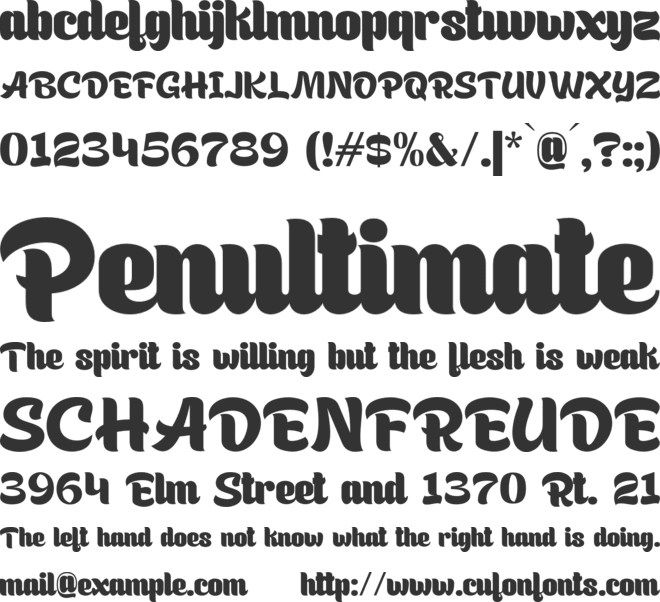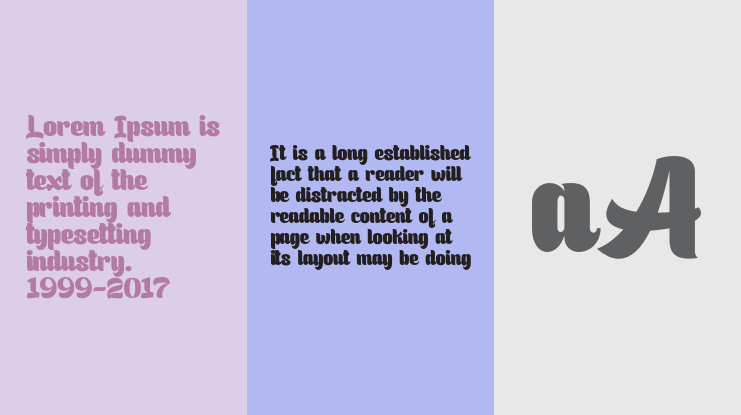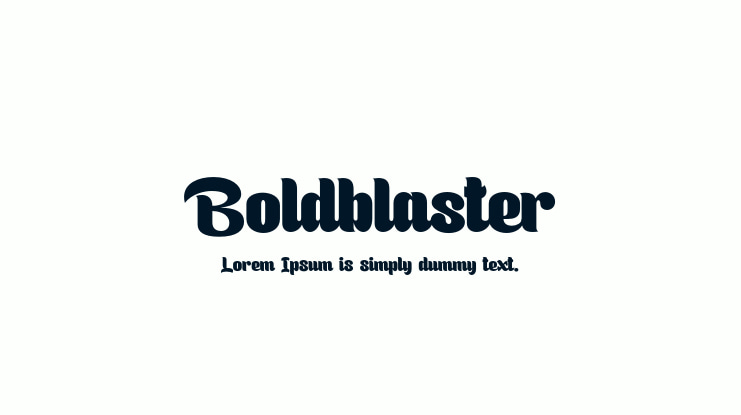
Boldblaster Font Family
Boldblaster brings vintage themes into the modern era. Neatly arranged lowercase characters are needed for writing a brand or logo. With regular and italic styles, the Boldblaster family can be used together in one display and can support each other in your designs.